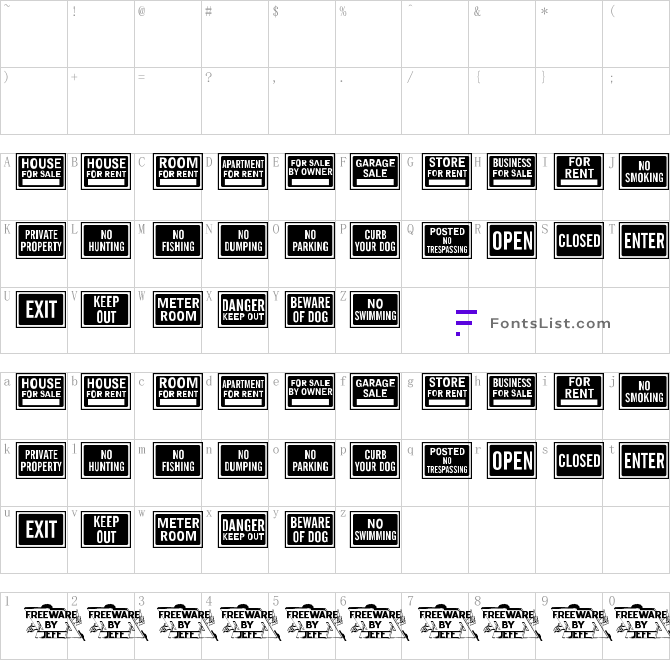
- Font Name:All-Purpose Signs JL
All-Purpose-Signs-JL.ttf is a very beautiful artistic font, All-Purpose-Signs-JL.ttf is widely used in the design and printing of various books and pictures,All-Purpose-Signs-JL.ttf has a strong visual impact,All-Purpose-Signs-JL.ttf is a commonly used font in newspapers, magazines and books, and is used in posters, e-commerce Poster design, store design, logo design, font design and other fields.All-Purpose-Signs-JL.